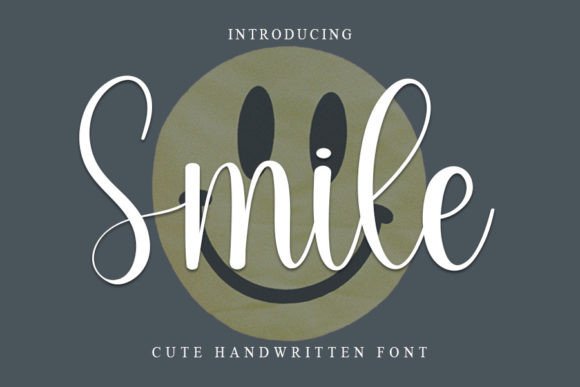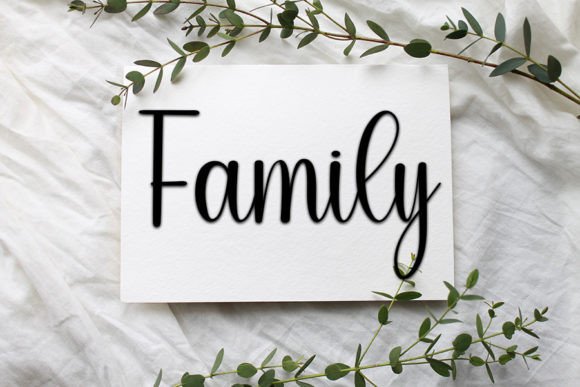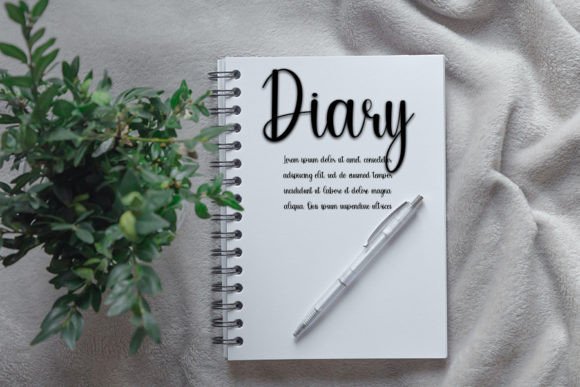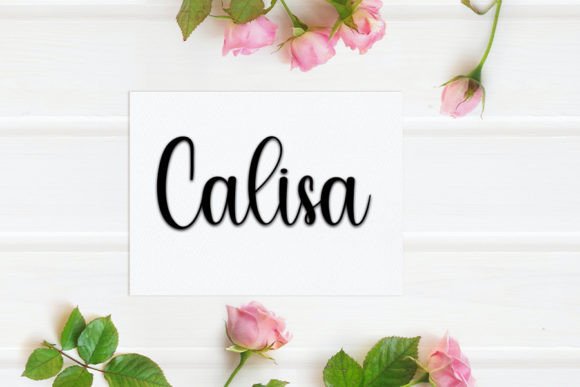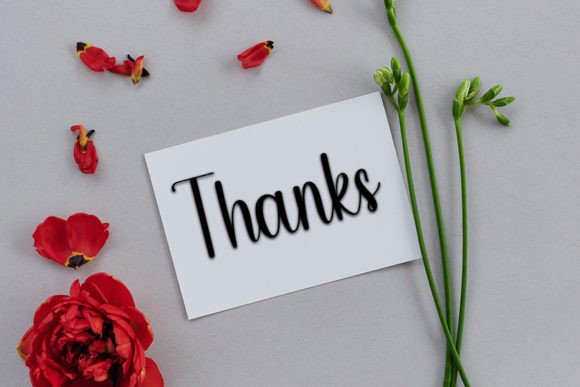
Smile Font
Add Grace and Personality with Smile Handwritten Font
The Smile Handwritten Font is a clean, beautiful script that brings timeless elegance and personality to your creative work. Crafted with a delicate touch, this font is ideal for designers, artists, and creatives who want to give their projects a refined yet friendly feel.
Whether you’re designing stationery, crafting branding elements, or making personalized gifts, Smile delivers a look that’s both professional and heartfelt.
Perfect for Invitations, Logos, Crafts, and More
Smile is the perfect choice for a wide variety of design projects. It shines in wedding invitations, event flyers, and branding kits, but it’s just as effective in handmade cards, social media graphics, and blog headers. The font’s versatile style adapts well to both formal and casual contexts, making it an excellent all-around creative tool.
Additionally, Smile works beautifully on Etsy product labels, T-shirt designs, and quote graphics—bringing a graceful, handcrafted look to every detail.
A Neat Script with Elegant Flow
What makes the Smile Handwritten Font stand out is its perfect balance of structure and style. The font features well-spaced letters with a gentle curve, giving it a polished look while preserving the charm of natural handwriting. Its flowing script lines and graceful forms make your text visually appealing without overwhelming your layout.
Despite its elegance, Smile is easy to read at any size. It works well for both large titles and smaller supporting text, offering flexibility across different design needs.
Ideal for Both Digital and Print Use
No matter the format, Smile delivers professional-quality results. It’s optimized for print materials such as business cards, greeting cards, product packaging, and art prints. In digital spaces, it performs just as well, enhancing Instagram posts, Pinterest pins, email headers, and website banners.
For the best visual balance, consider pairing Smile with a modern serif or sans-serif font. This will help emphasize the handwritten script while keeping your overall layout clean and easy to navigate.
Why Designers Love Smile Handwritten Font
Here’s why Smile is a favorite among professionals and hobbyists:
• Elegant, neat handwritten design
• Perfect for both formal and creative projects
• High readability at any size
• Works across print and digital platforms
Create with Confidence and Beauty
In conclusion, the Smile Handwritten Font is a sophisticated and versatile typeface that adds warmth and elegance to any design. Whether you’re developing a brand, designing an invitation, or creating digital content, this font helps express emotion and craftsmanship in every letter.
If you’re looking for a handwritten font that’s both graceful and timeless, Smile is the perfect choice to bring your designs to life.